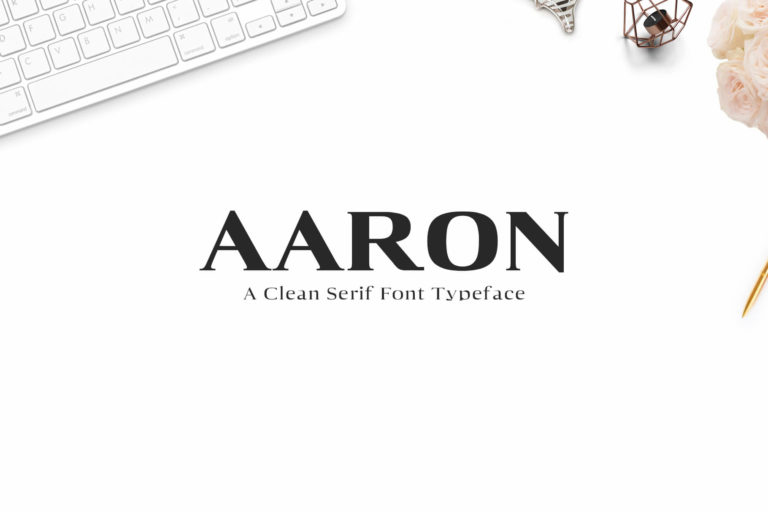
- Aaron Serif Font Family
Aaron Serif Font Family is a modern and clean rounded serif font with multilingual support. It’s a very versatile font that works great in large and small sizes. Aaron is perfect for branding projects, home-ware designs, product packaging, logo, greeting cards, quotes, posters, branding, name card, stationary, design title, blog header, typography, wedding invitations, magazine headers, or simply as a stylish text overlay to any background image. Moreover, it is also suitable for art, modern envelope lettering or book design, happening style like hand drawn design or watercolor design theme, craft design, any DIY project, book title, wedding font, pop vintage design, or any purpose to make our art/design project look pretty and trendy.
Features:
- Regular, Black, Medium, Thin, Light, Distorted, Round, Italics
Aaron Font Features:
- Uppercase Multilingual Letters
- Lowercase Multilingual Letters
- Non English Characters ( Latin Supplement + Latin Extended A)